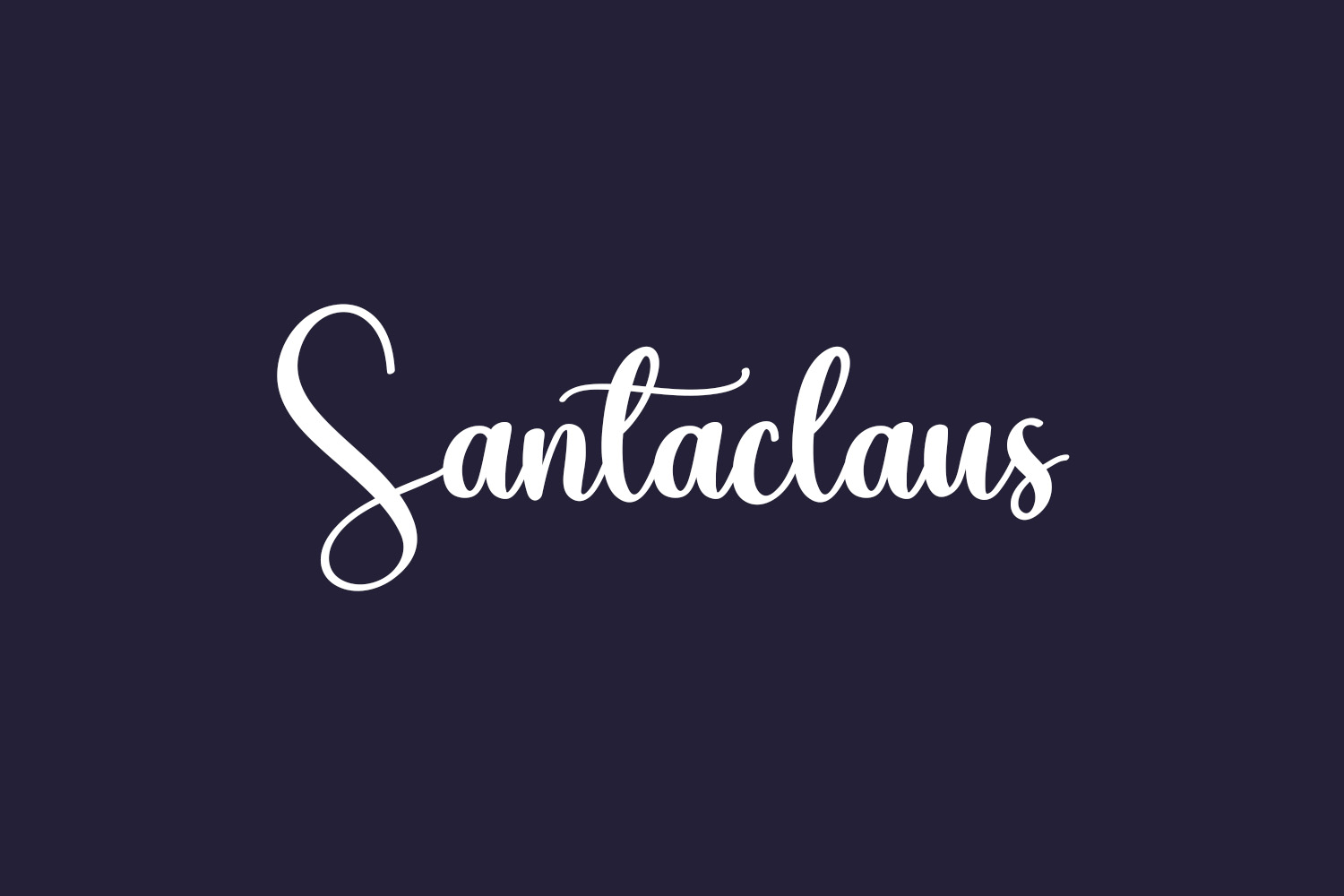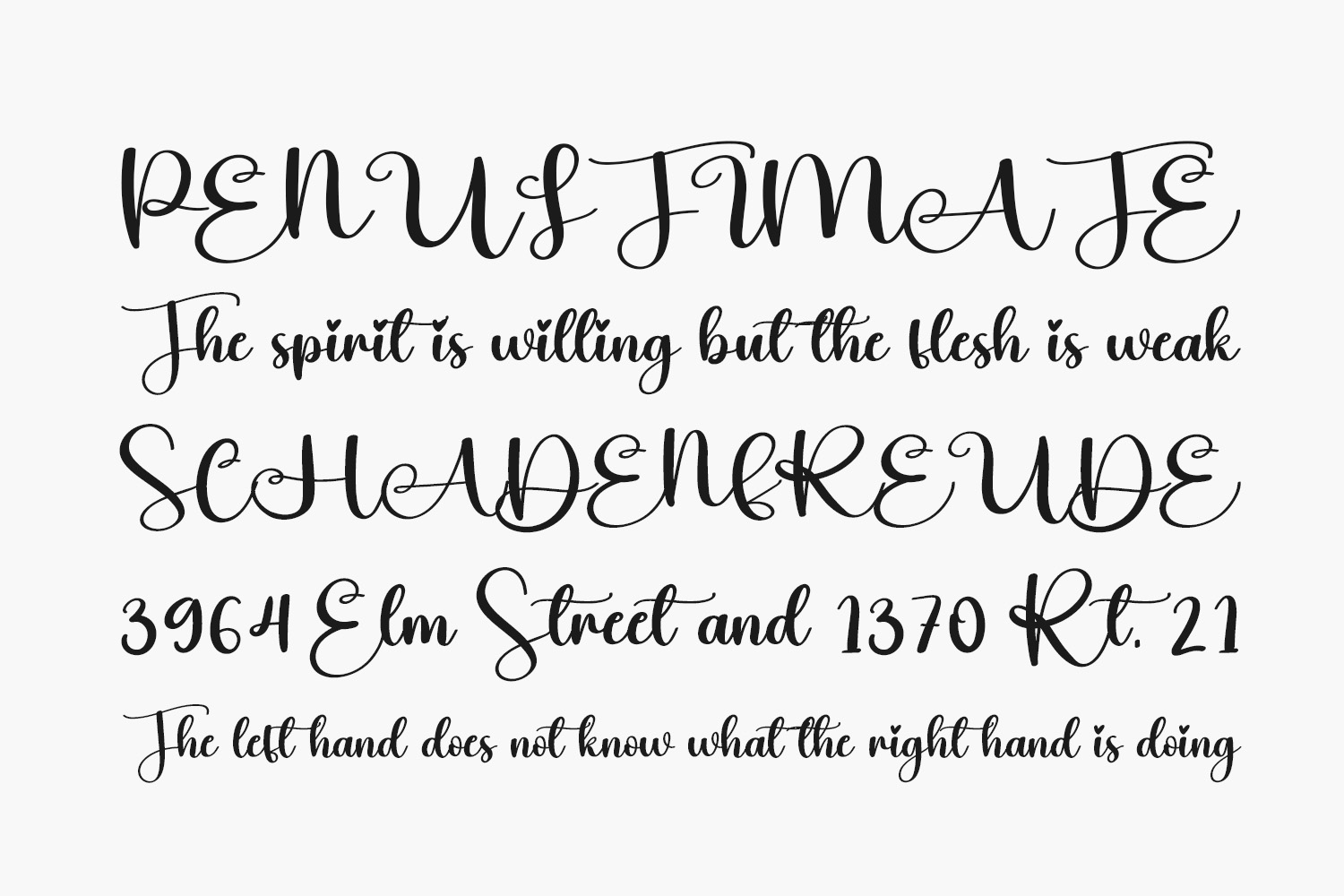
Santaclaus Free Font is an exquisite script font that exudes charm and meticulous craftsmanship. No matter the project, this font is a valuable addition to your font collection, capable of elevating any design with its detailed and well-crafted appeal. Santaclaus Free Font is free for personal use only. Please purchase the full version for commercial use.
Designed by Scratchones